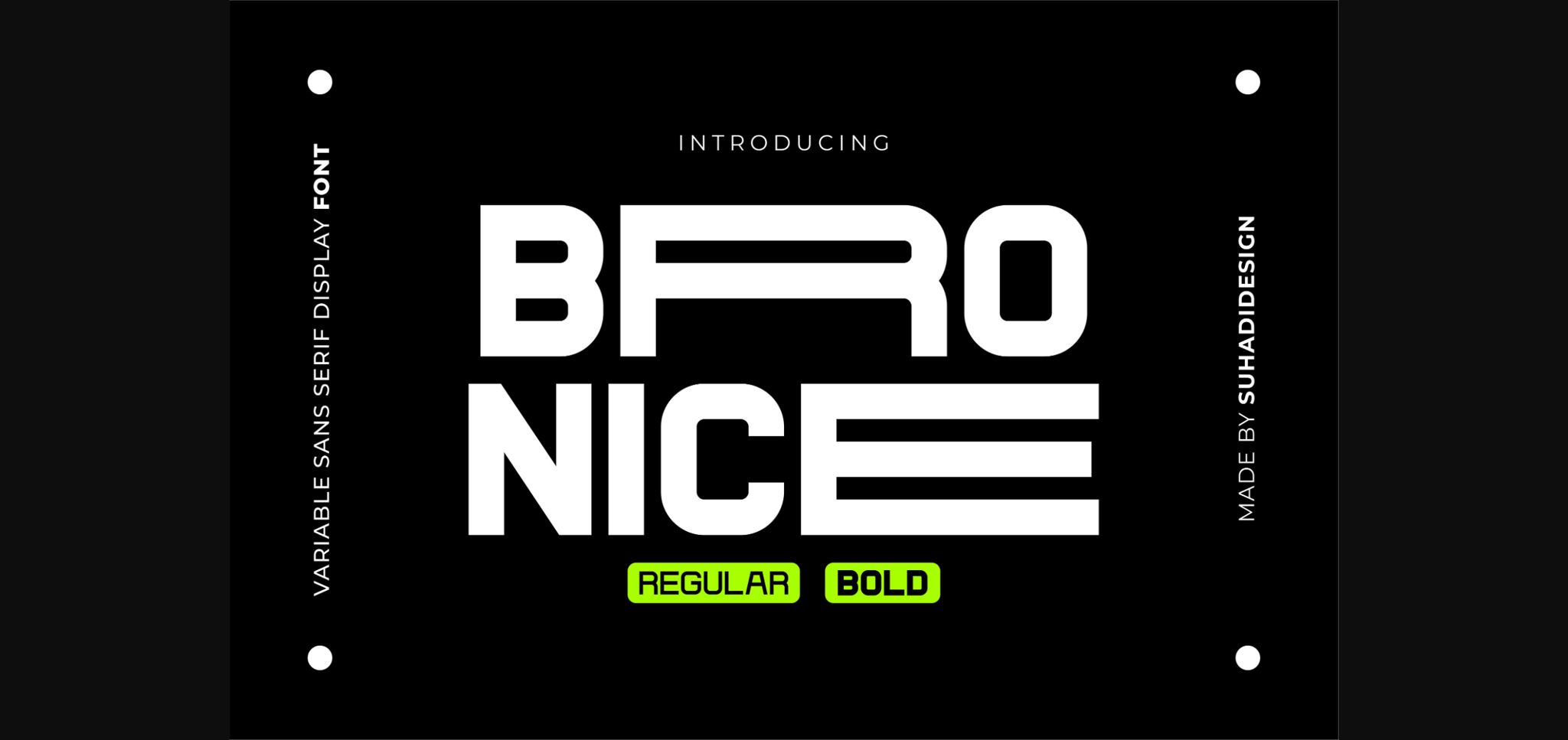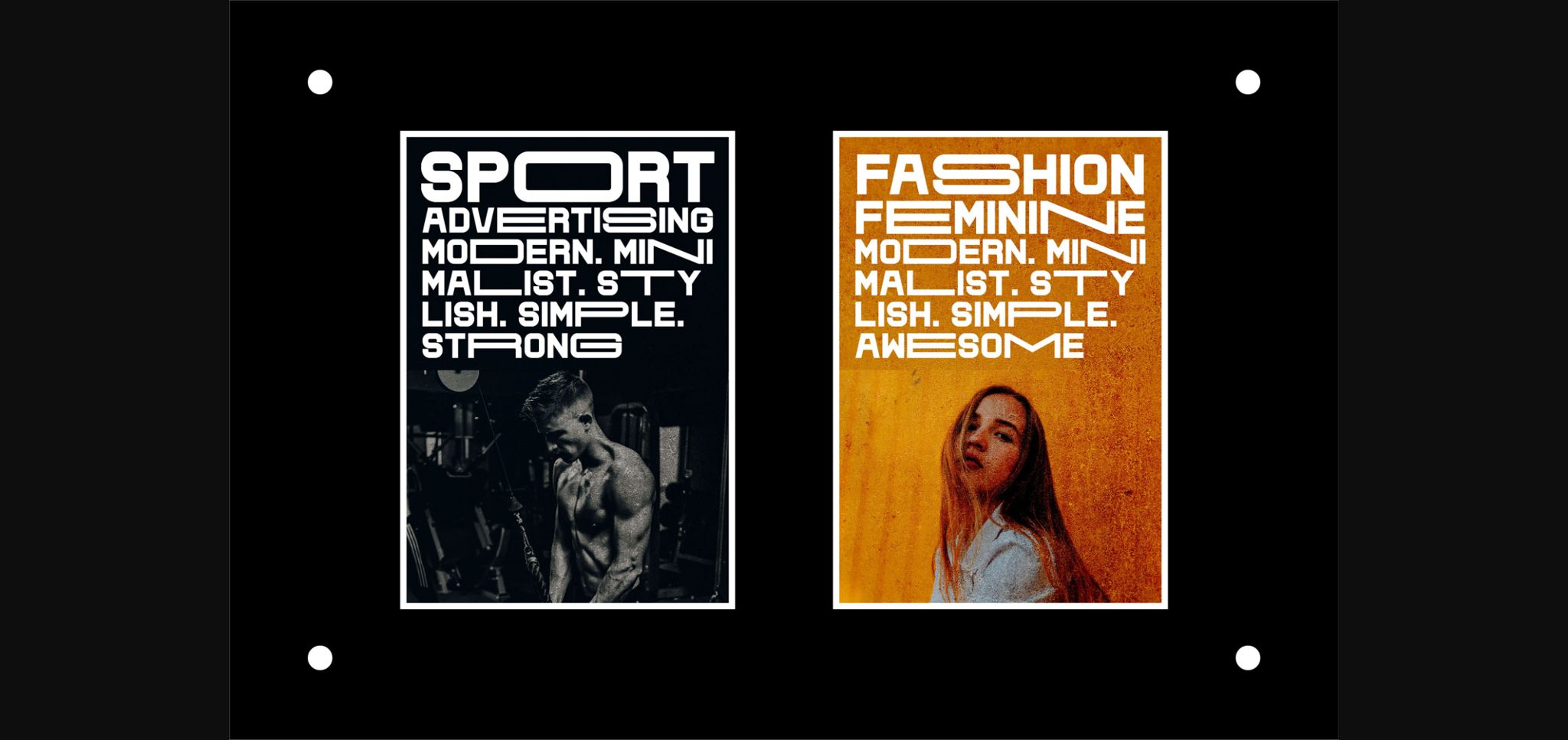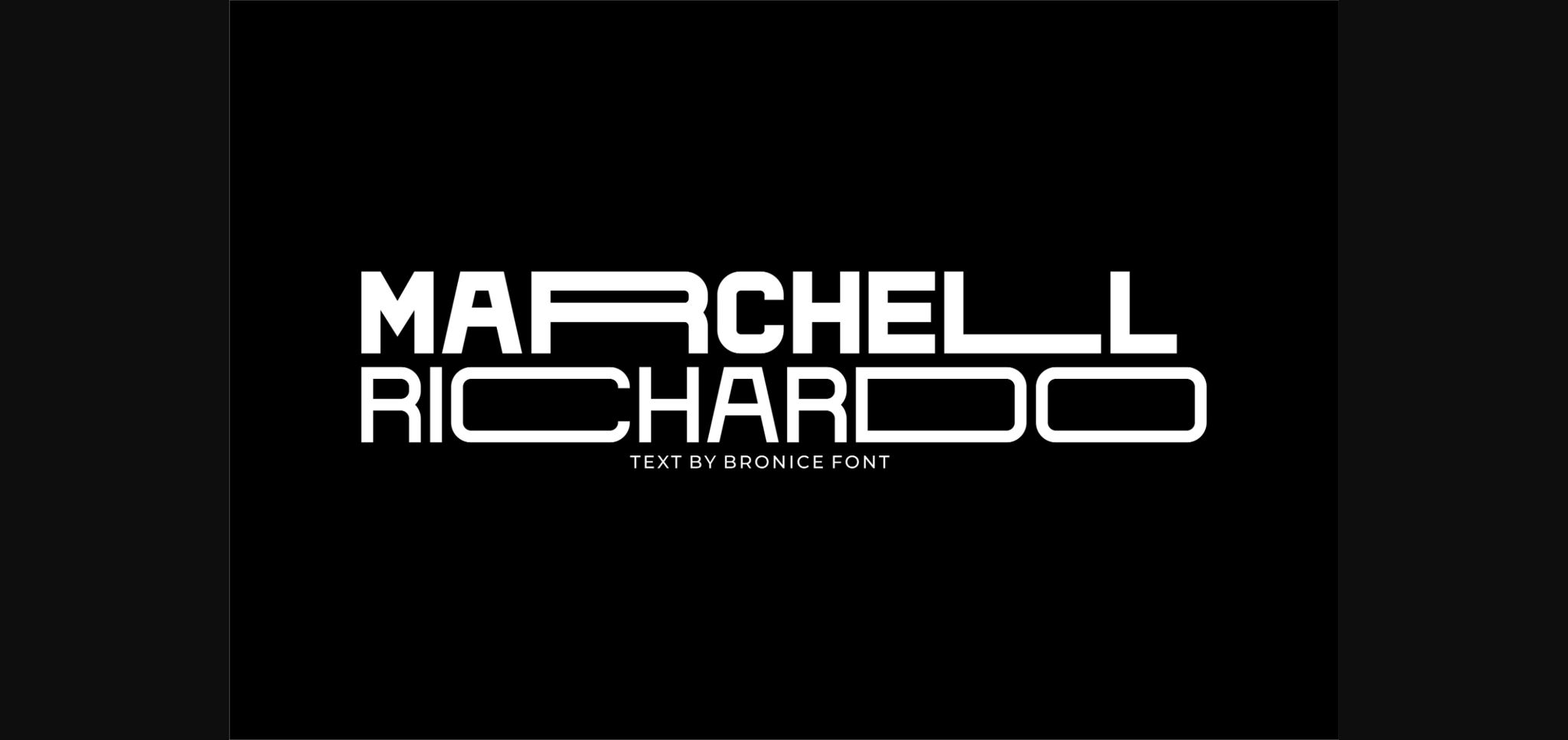
About Bronice Font
The Bronice font is a very popular cool modern sans serif font, presented in a modern style with the hope of becoming a market favorite. We keep this font looking elegant, classy, modern, stylish, up-to-date, and easy to use. Bronice Font is a great choice for brands, company names, fashion, logos, food menus, brand names, branding, quotes, album covers, and other projects. The Bronice font is here to take your designs to the next level.